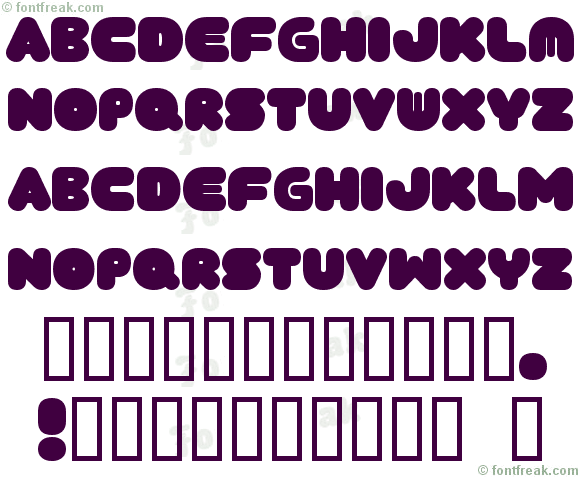
TANTOR
About Tantor
The Tantor font, designed by Fenotype, is a playful display typeface that combines a modern aesthetic with a whimsical flair. As a decorative font, it features rounded, bulbous letterforms that exude a friendly and approachable vibe. The stroke weight is consistent, creating a sense of harmony while offering a slight contrast that enhances readability. The ample spacing between characters contributes to its airy feel, allowing each letter to stand out distinctly. Tantor's unique style is accentuated by its subtle decorative elements, which add character without overwhelming the overall design.
This font is particularly well-suited for a variety of creative applications. Graphic designers may find it ideal for crafting vibrant wedding invitations that convey a sense of joy and celebration. Its playful nature makes it an excellent choice for children's book covers, where it can capture the imagination of young readers. Additionally, Tantor works wonderfully for movie posters, providing an eye-catching title treatment that draws attention. Small business owners can utilize this font in restaurant menus to create a fun and inviting atmosphere, appealing to customers looking for a unique dining experience. Content creators can also leverage its charm in social media graphics, making posts that stand out in crowded feeds.
Target audiences for the Tantor font include graphic designers, small business owners, and content creators who are looking for a typeface that balances fun with functionality. The Tantor font free download offers an accessible option for those wanting to infuse their projects with a distinctive and cheerful style. What sets Tantor apart is its ability to combine visual appeal with versatility, making it a valuable addition to any designer's toolkit. With its unique character and adaptability, Tantor is sure to leave a lasting impression in any context.